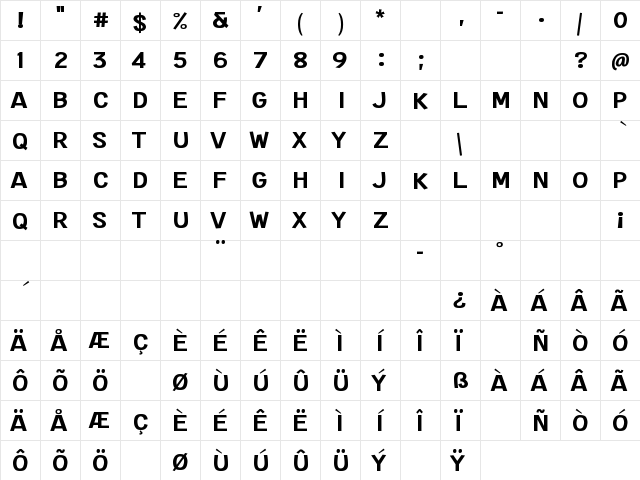
Extended Play Regular
Design Context for Extended Play Typeface
Extended Play offers clean, dependable letterforms without strong stylistic allegiance, making it a practical choice for designers who need flexibility.